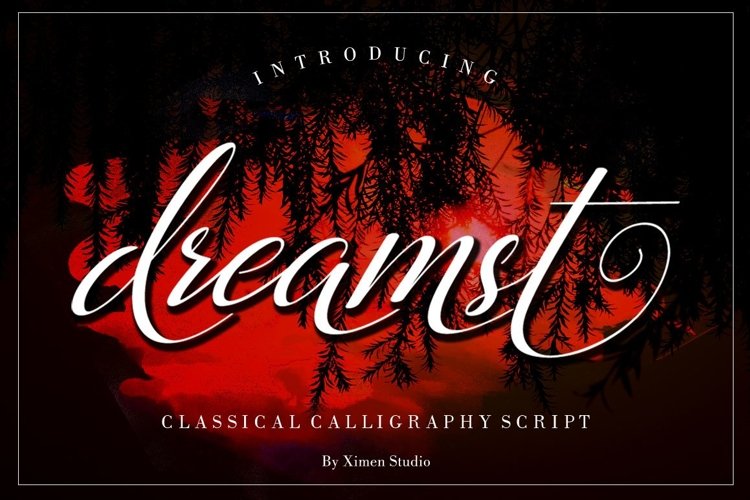
Web Font Dreamst Script
Introducing
Dreamst Script
Dreamst Script a new fresh & modern script with a handmade calligraphy style, decorative characters and a dancing baseline! So beautiful on invitation like greeting cards, branding materials, business cards, quotes, posters, and more!!Dreamst Script come with 150 + glyphs. The alternative characters were divided into several